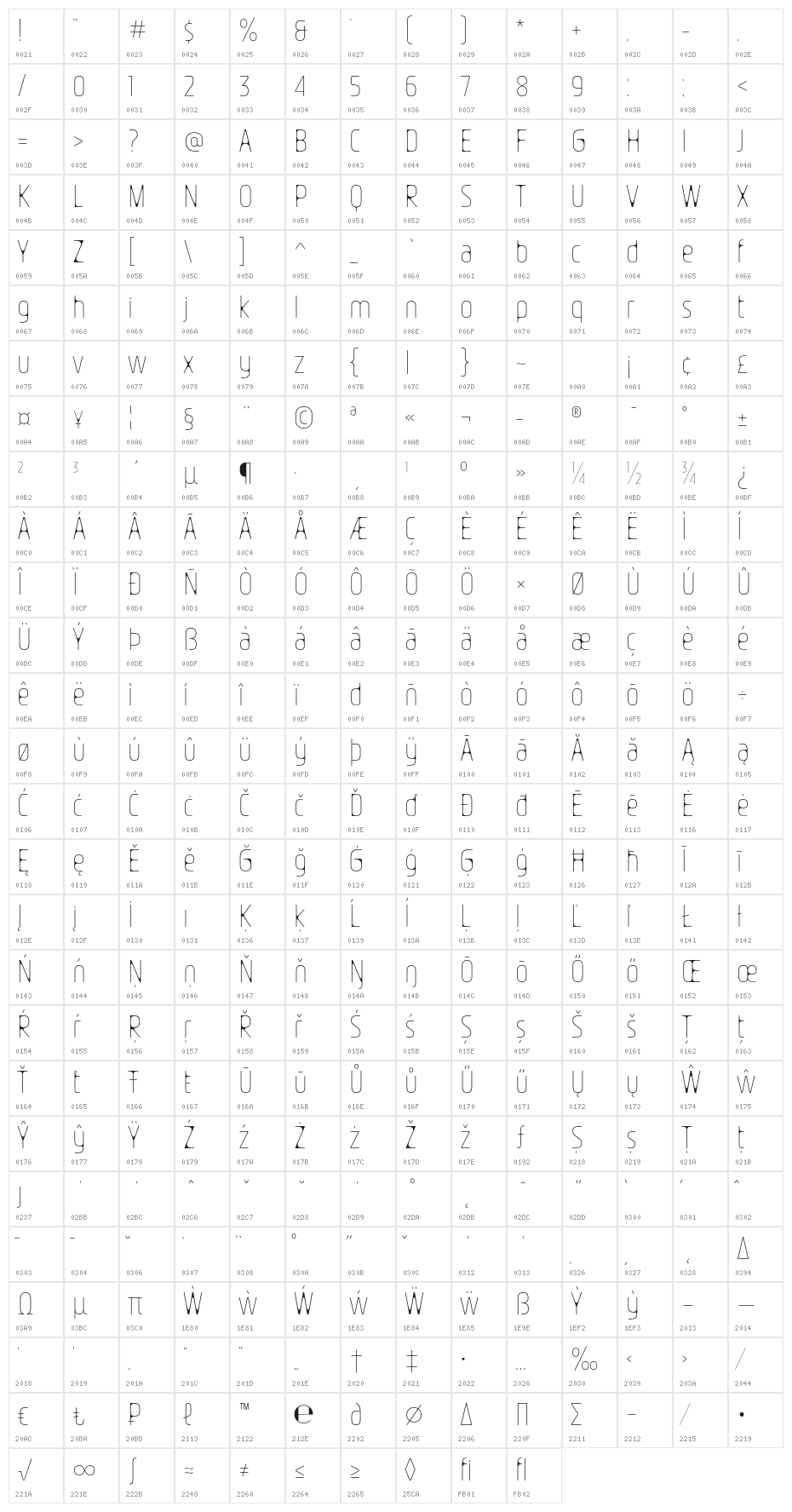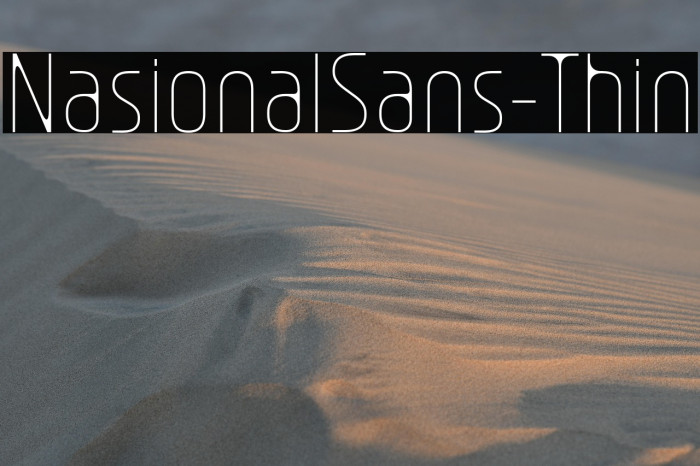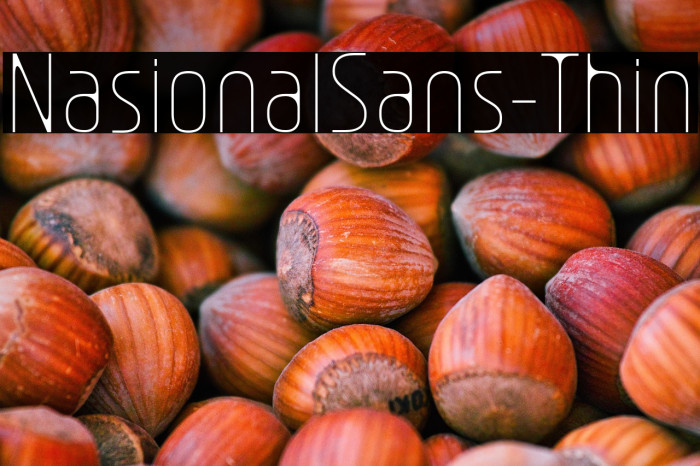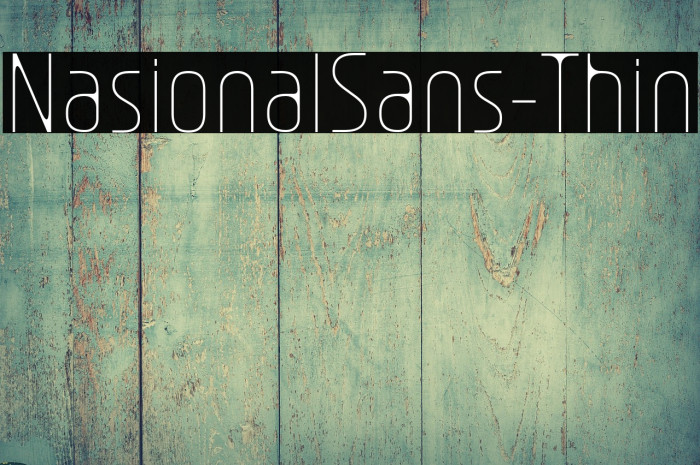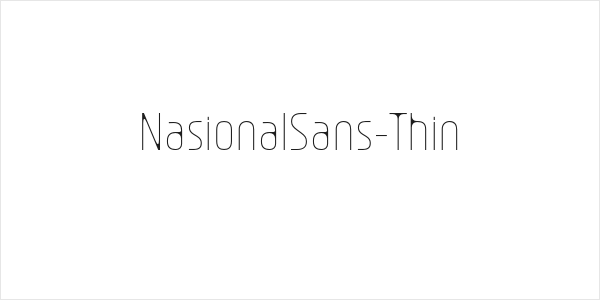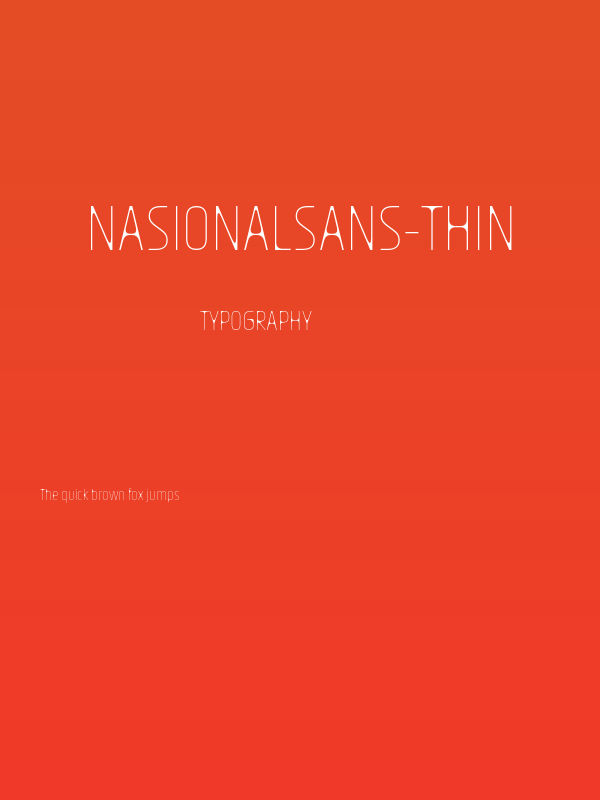
NasionalSans-Thin Font
NasionalSans-Thin Description
This font features a sleek, modern design with a thin, elegant appearance. The characters are crafted with a minimalist approach, emphasizing clean lines and subtle curves. The uppercase letters are tall and narrow, while the lowercase letters maintain a consistent height, providing a harmonious balance. The numerals are distinct and easy to read, complementing the overall aesthetic. Special characters are included, maintaining the font's refined style. This font is ideal for projects that require a contemporary and sophisticated look.